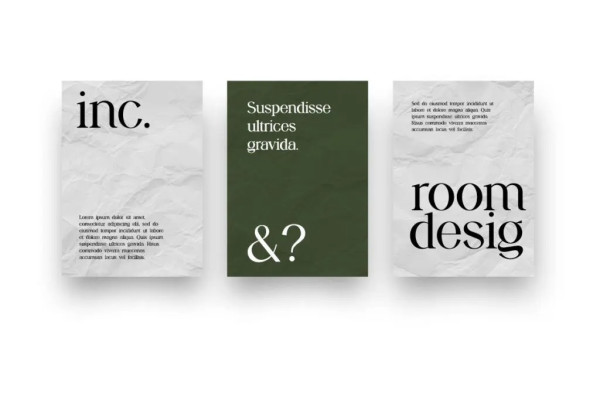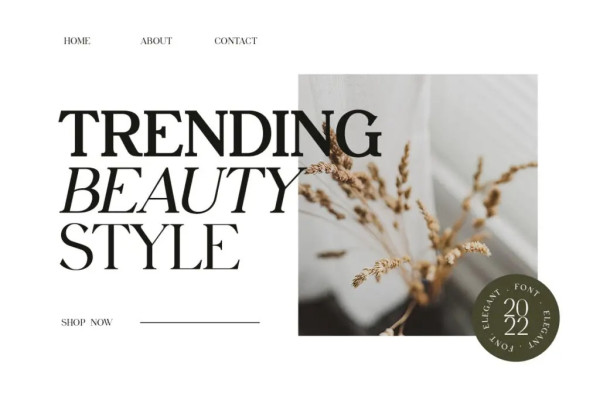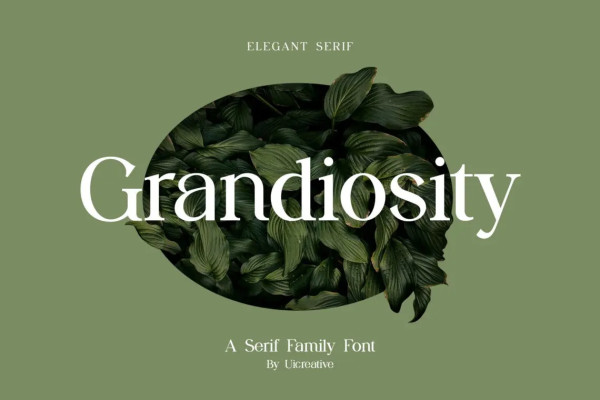
Grandiosity Font
Grandiosity Font – Elegant Serif Font. The modern display font feels beautiful classy, elegant, and stylish. This font is ideally suited for a wide variety of projects, such as signature, stationery, logo, wedding, typography quotes, magazine or book covers, website headers, branding, and more. Also, fashion-related branding or editorial design displays both masculine and feminine qualities.